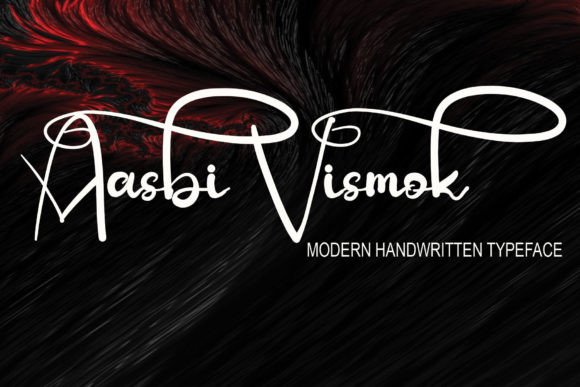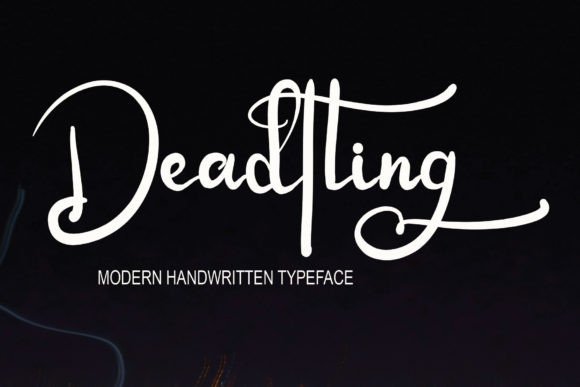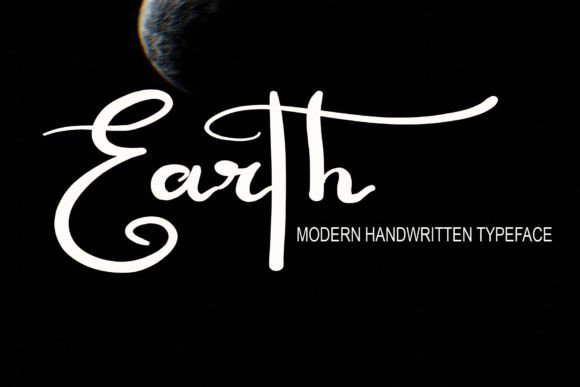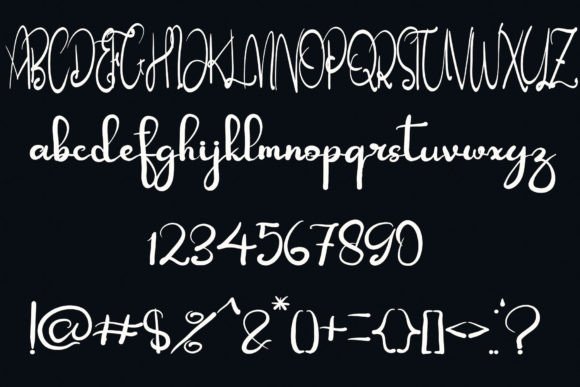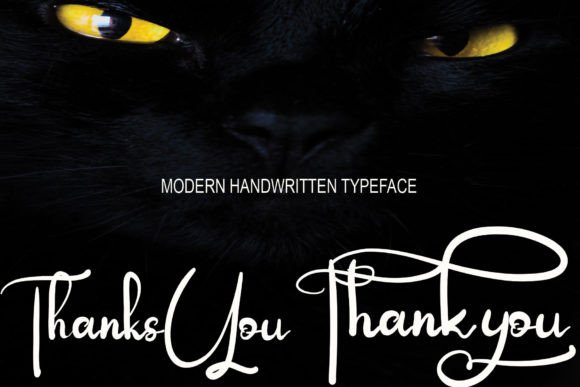
About Githyan Juhjis Font
Githyan Juhjis is a font written by hand using a tablet. It looks simple but was written very carefully. The font can be used for websites, wedding invitations, business cards, signatures, and advertisements, be it product advertisements or other advertisements. Even though it looks simple, this font still looks cool and stylish.